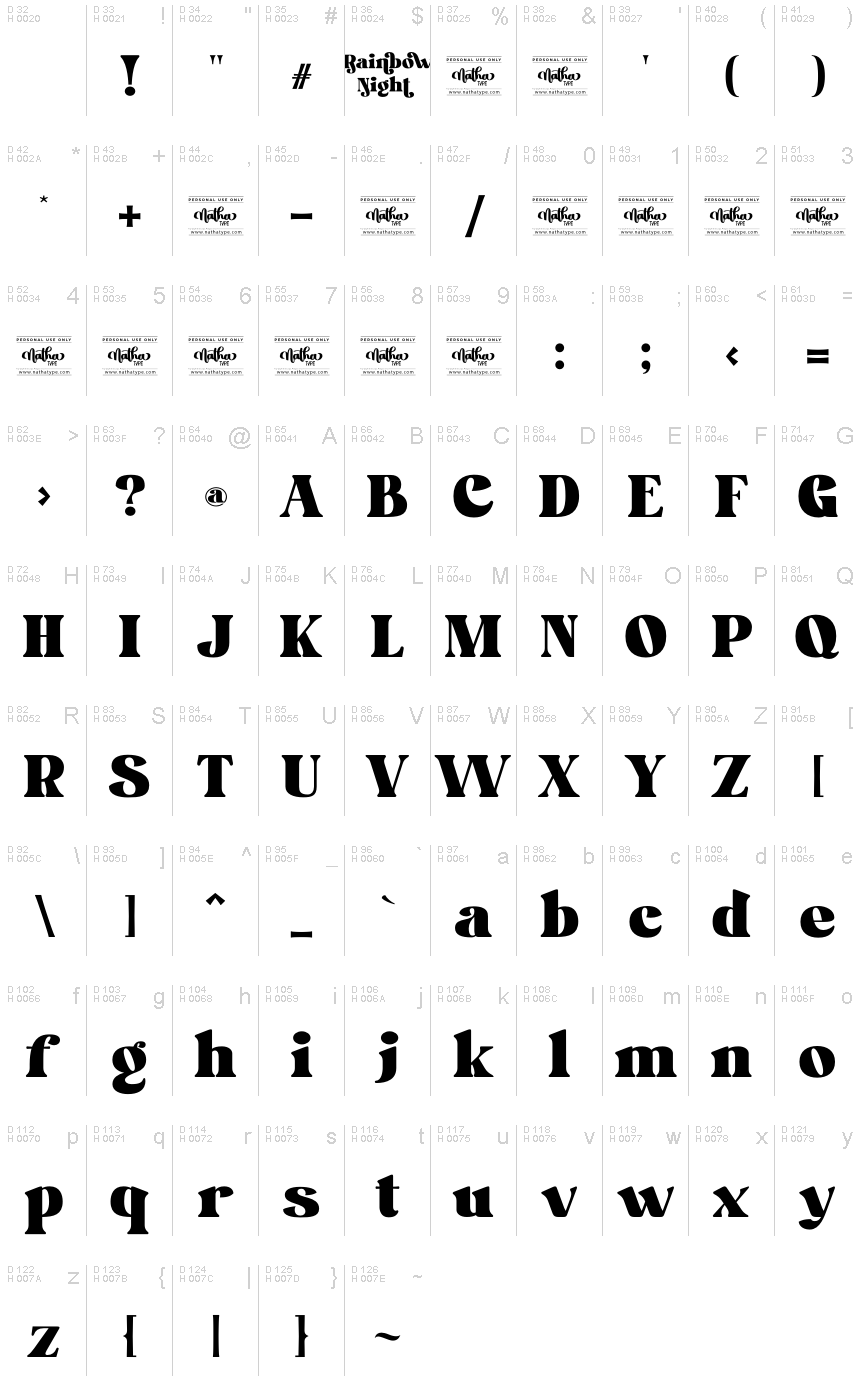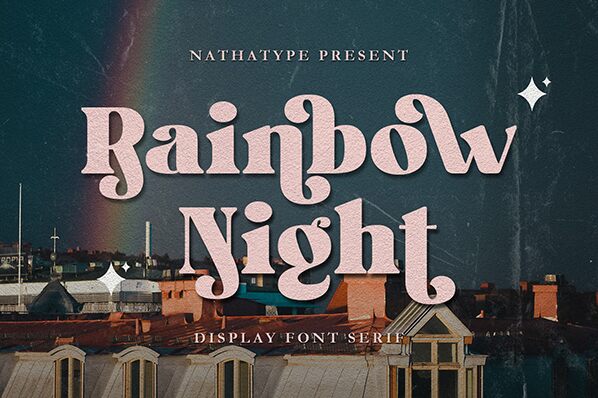
Rainbow Night, designed by Nathatype, is a bold and captivating retro serif font that exudes a sense of nostalgic elegance. The striking letterforms, with their distinct serifs and robust weight, create a visually striking and impactful typographic presence. This font's vintage-inspired aesthetic evokes a sense of timeless sophistication, making it a compelling choice for a wide range of design projects.
The versatility of Rainbow Night shines through its ability to command attention and convey a strong, memorable brand identity. Its bold and confident personality lends itself beautifully to headlines, logos, and eye-catching displays, where its unique character can truly shine. Whether crafting a retro-inspired poster, designing an elegant book cover, or curating a visually striking social media campaign, Rainbow Night offers a distinctive typographic solution that is sure to leave a lasting impression.